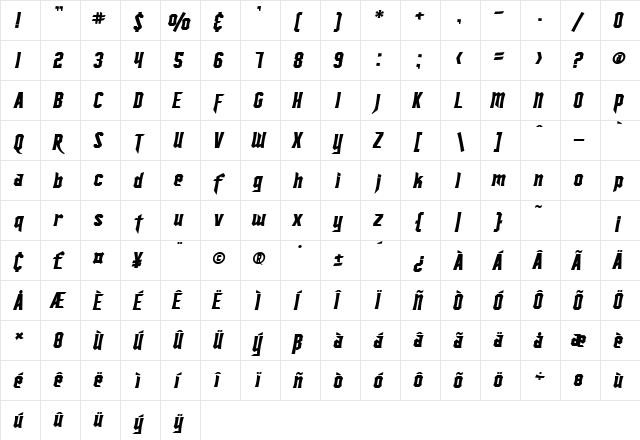
SF Ironsides Bold Italic
Design Context for SF Ironsides Typeface
SF Ironsides is a composed and adaptable typeface that performs quietly and consistently across a wide range of design contexts. The dynamic lean of this cut emphasises speed and emphasis in any layout. The heavy weight commands attention and anchors typographic hierarchies.
Pro Tip: Try SF Ironsides for annotation and caption copy alongside an upright companion — the contrast in angle creates a dynamic but ordered typographic system.